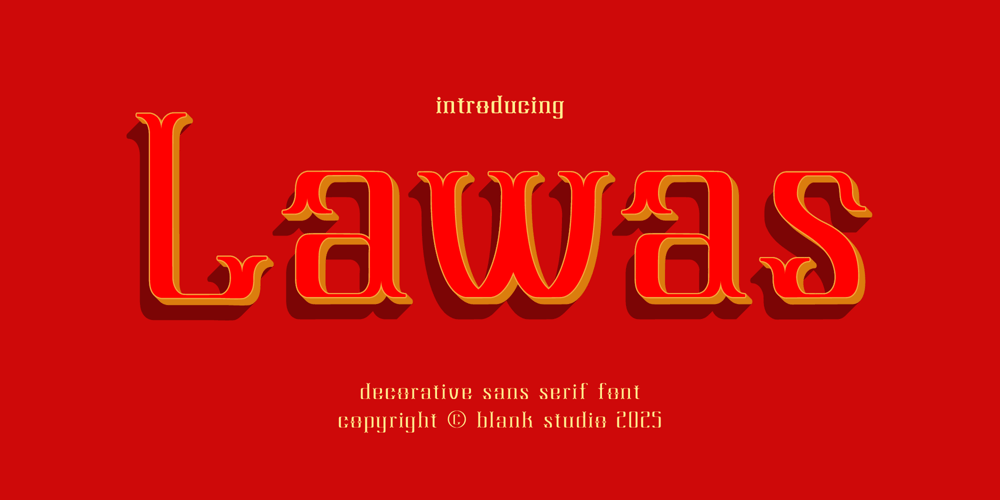
Lawas Font Family was designed by Roni Setiyawan and published by Blank Studio. Lawas contains 1 styles and family package options. Lawas is a decorative sans serif typeface that masterfully combines modern minimalism with bold, ornate flair, infused with the rich cultural essence of Southeast Asia. Its unique letterforms feature dramatic curves and intricate details, evoking the elegance and artistry of traditional regional motifs.The strong Southeast Asian influence in Lawas’s design makes it a perfect choice for projects that celebrate cultural heritage or seek to blend modern aesthetics with traditional themes. Its bold yet refined style is ideal for branding, headlines, packaging, and posters that demand attention while staying rooted in authenticity.The contrast between its clean, geometric foundation and ornamental details reflects a harmonious balance, making Lawas versatile for both contemporary and heritage-inspired designs. Whether you’re creating an iconic logo or an evocative editorial layout, Lawas adds a touch of Southeast Asian charm and sophistication to your work.